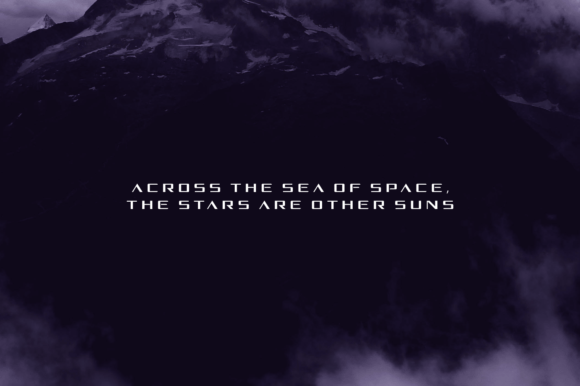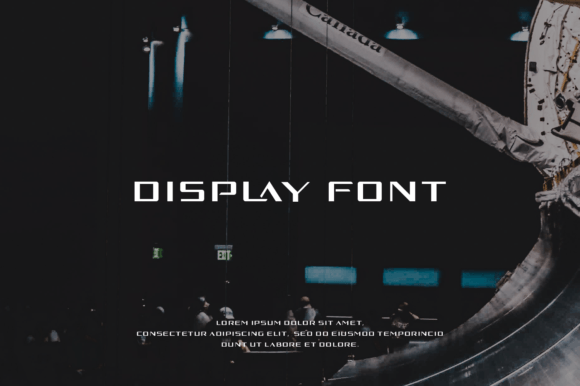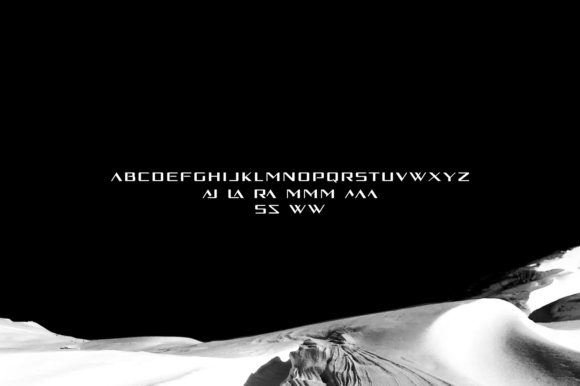
Introducing Angora Font: The Ultimate Choice for Modern Designs
In the world of typography, fonts play a crucial role in conveying the tone and personality of a brand or design. With the numerous font options available, it can be overwhelming to choose the perfect one that suits your creative vision. However, if you’re looking for a bold, modern, and cool display font that can elevate your designs, look no further than Angora Font.
What is Angora Font?
Angora Font is a stylish and contemporary display font designed to make a statement. Its bold and sleek appearance makes it perfect for a wide range of applications, from logos and branding projects to t-shirt designs, fashion brands, posters, banners, and streetwear designs. With its innovative feel, Angora Font is ideal for designers and crafters who want to add a touch of modernity to their creations.
Key Features of Angora Font
- Bold and Modern Appearance: Angora Font boasts a bold and modern look that is sure to grab attention. Its sleek lines and curves make it perfect for designs that require a contemporary feel.
- Versatility: Angora Font can be easily paired with various font types, making it a versatile choice for designers. Whether you’re creating a logo, poster, or t-shirt design, Angora Font can be paired with a range of fonts to achieve the desired look.
- High-Tech and Fashionable: Angora Font is perfect for hi-tech brands, fashion brands, and streetwear designs. Its modern appearance makes it an excellent choice for brands that want to convey a sense of innovation and style.
Use Cases for Angora Font
Angora Font is a versatile font that can be used in a variety of design projects. Here are some use cases where Angora Font excels:
- Logos and Branding Projects: Angora Font is perfect for creating bold and memorable logos that make a statement.
- T-Shirt Designs: Angora Font is a great choice for t-shirt designs, especially for fashion brands and streetwear designs.
- Posters and Banners: Angora Font can be used to create eye-catching posters and banners that grab attention.
- Fashion Brands: Angora Font is ideal for fashion brands that want to convey a sense of style and sophistication.
- Streetwear Designs: Angora Font is perfect for streetwear designs that require a bold and modern look.
Why Choose Angora Font?
With so many font options available, why choose Angora Font? Here are some reasons why Angora Font stands out:
- Unique and Modern Design: Angora Font has a unique and modern design that sets it apart from other fonts.
- Easily Pairable: Angora Font can be easily paired with various font types, making it a versatile choice for designers.
- High-Quality: Angora Font is a high-quality font designed to deliver exceptional results in various design projects.
In conclusion, Angora Font is a bold, modern, and cool display font that is perfect for designers and crafters who want to add a touch of innovation to their designs. With its versatility, unique design, and high-quality appearance, Angora Font is an excellent choice for a wide range of design projects. Whether you’re creating logos, branding projects, t-shirt designs, or posters, Angora Font is sure to deliver exceptional results.